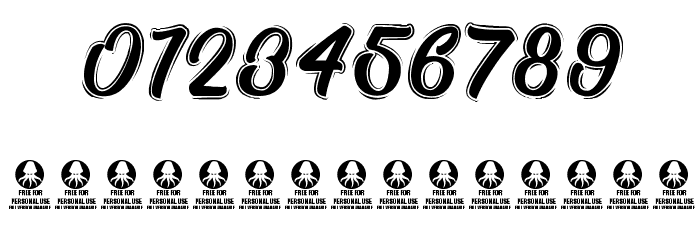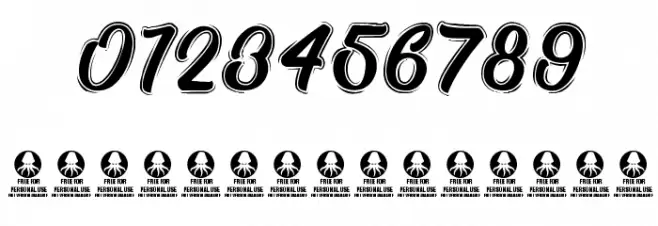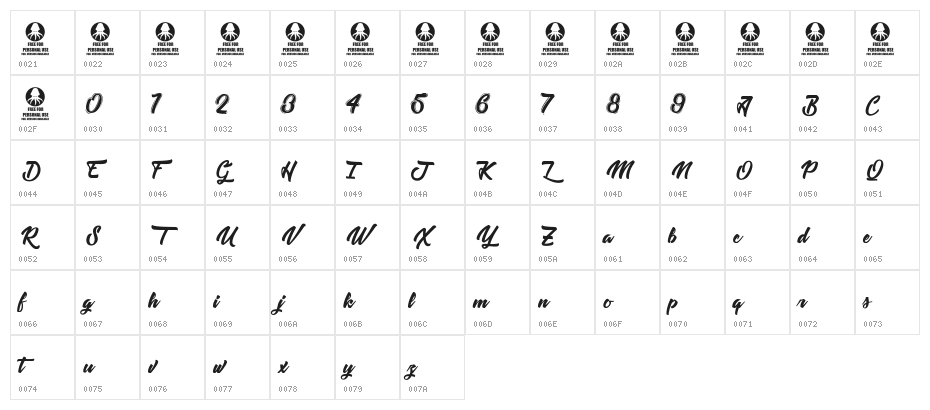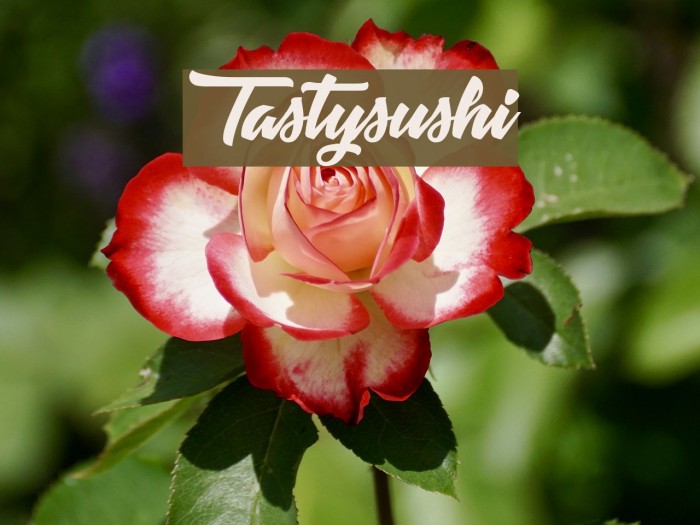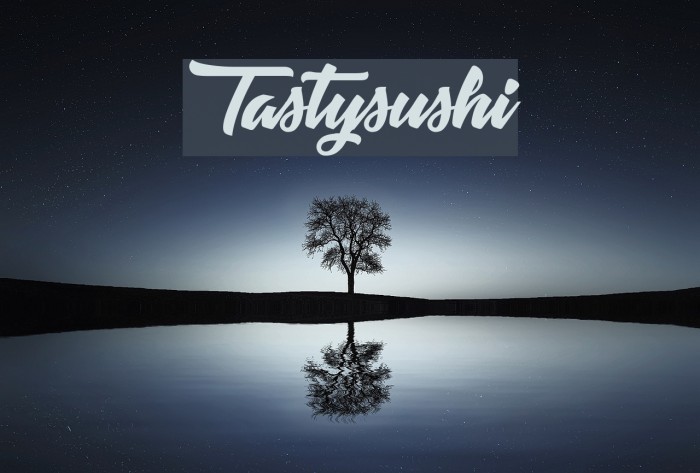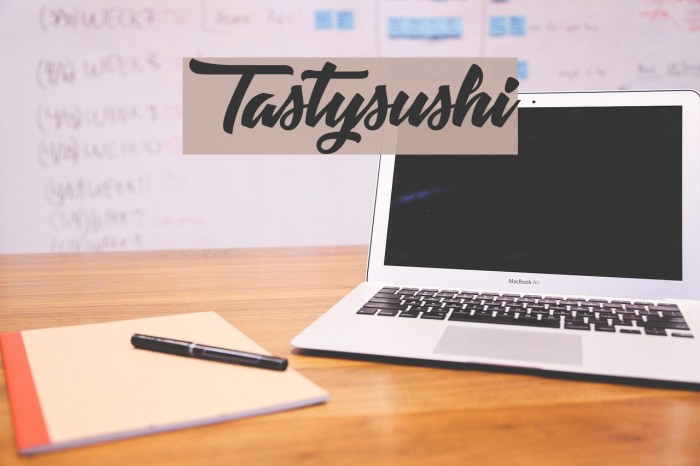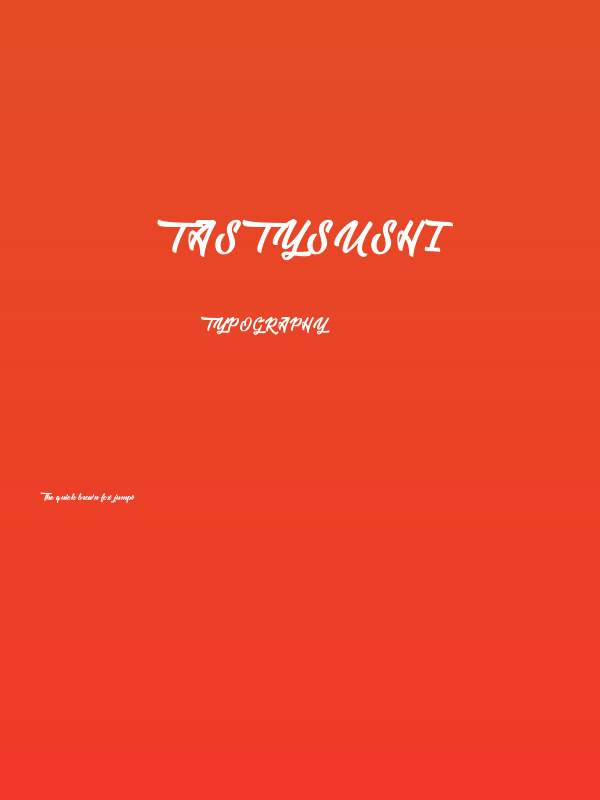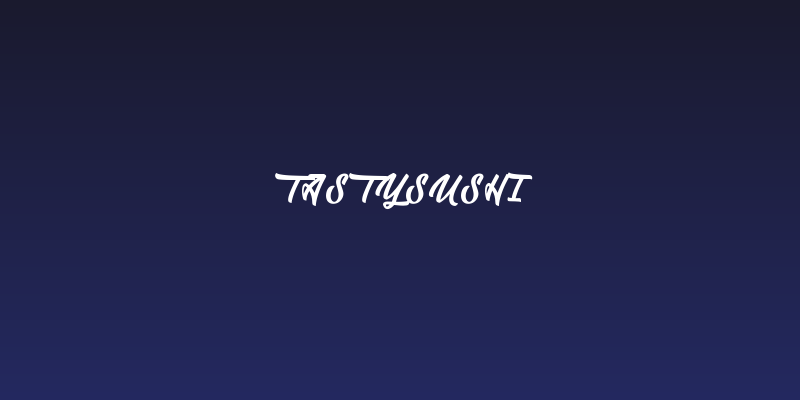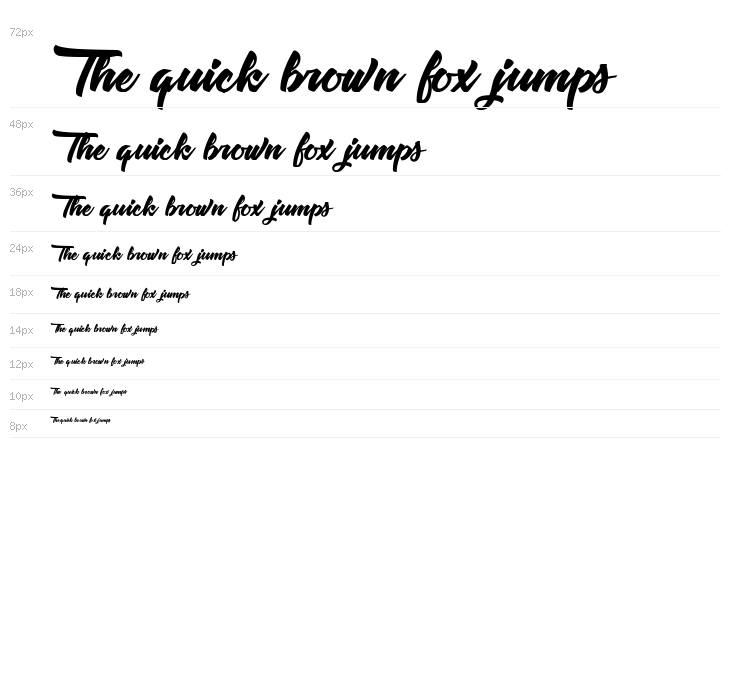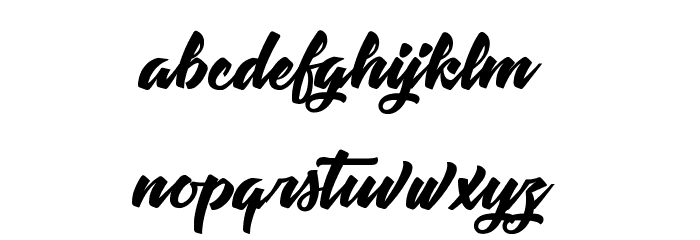
Tastysushi Font
Tastysushi Description
This font features a bold, flowing script style that exudes elegance and sophistication. The uppercase letters are characterized by dramatic flourishes and sweeping curves, while the lowercase letters maintain a consistent, fluid motion. The numerals are equally stylized, with a playful yet refined appearance. This font's design is reminiscent of classic calligraphy, making it suitable for projects that require a touch of class and personality. The overall look is both modern and timeless, making it versatile for various design needs.
| Overall Style | Modern, Classic |
| Proposed Projects | Ideal for wedding invitations, luxury branding, elegant packaging, and decorative signage. |